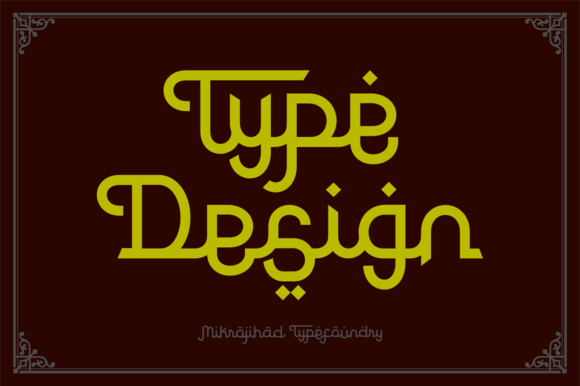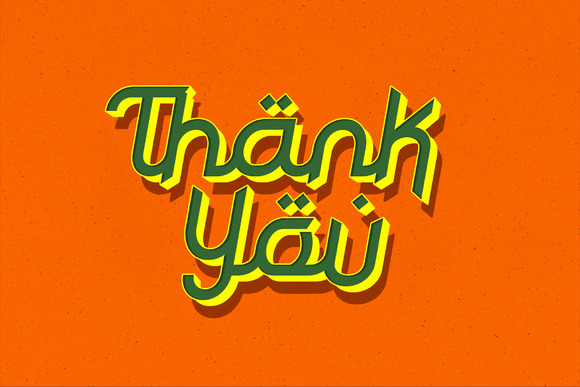
Rodja Font
About Rodja Font
About the Rodja font
The Rodja Script font is a beautiful type with a classic Arabic style in a modern outfit.
Rodja is inspired by the high style Fusha. Fusha is traditionally characterized by it’s complicated system of conjugations. Rodja brings the western latin letters together with this beautiful Arabic style which results in this stunning unique type.
The Rodja Script font is the perfect choice if you are looking to create a unique piece of work that needs to stand out.